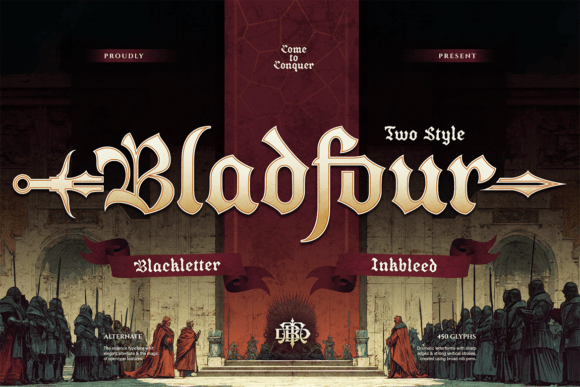
Unleash Your Creativity with Bladfour Font: A Powerful Blackletter Typeface
Have you ever been in the middle of a design project, pouring your heart and soul into it, only to hit a roadblock when it comes to choosing the perfect font? I certainly have. It was during one of those moments, working on a dark fantasy-themed poster, that I stumbled upon the Bladfour font. And let me tell you, it was love at first sight! ✨
Bladfour is a powerful blackletter typeface that instantly transports you to a world of epic stories, dark fantasy realms, and legendary visuals. Its bold, commanding presence is perfect for designers, crafters, and creative hobbyists looking to add a touch of medieval magic to their work.
What Makes Bladfour Special?
Bladfour is more than just a font – it’s an experience. Inspired by medieval manuscripts, ancient warriors, and heroic tales, this font brings a sense of grandeur and drama to every design it touches. Here are some of its standout features:
• Two distinctive styles: Blackletter and Inkbleed, allowing for a clean, sharp look or a raw, ink-soaked texture
• Carefully crafted details, strong vertical strokes, and classic gothic character shapes
• Supports uppercase and lowercase letters, numerals, punctuation, and a wide range of glyphs
• Flexible for both display and headline use
What I Love About Bladfour
• ✨ The font’s versatility – it works beautifully for fantasy games, movie titles, book covers, branding, posters, logos, and medieval-themed projects
• ✅ The two styles offer a great range of creative possibilities
• 💥 The font’s ability to evoke a strong medieval atmosphere with cinematic impact
While Bladfour is an amazing font, there are a few things to keep in mind:
• ⚠️ The Inkbleed style can be a bit tricky to read in smaller sizes
• 🤔 Some users may find the font’s boldness overwhelming for certain design projects
The Story Behind Bladfour
Bladfour was born from a passion for medieval history and a love for bold, dramatic typography. Its creator, a talented type designer, drew inspiration from ancient manuscripts, heroic tales, and legendary warriors. The result is a font that feels heroic, dark, and cinematic – perfect for designers looking to add a touch of epic storytelling to their work.
Q: What type of projects is Bladfour best suited for?
A: Bladfour is perfect for fantasy games, movie titles, book covers, branding, posters, logos, and medieval-themed projects.
Q: Does Bladfour support non-English characters?
A: Yes, Bladfour supports a wide range of glyphs, including non-English characters.